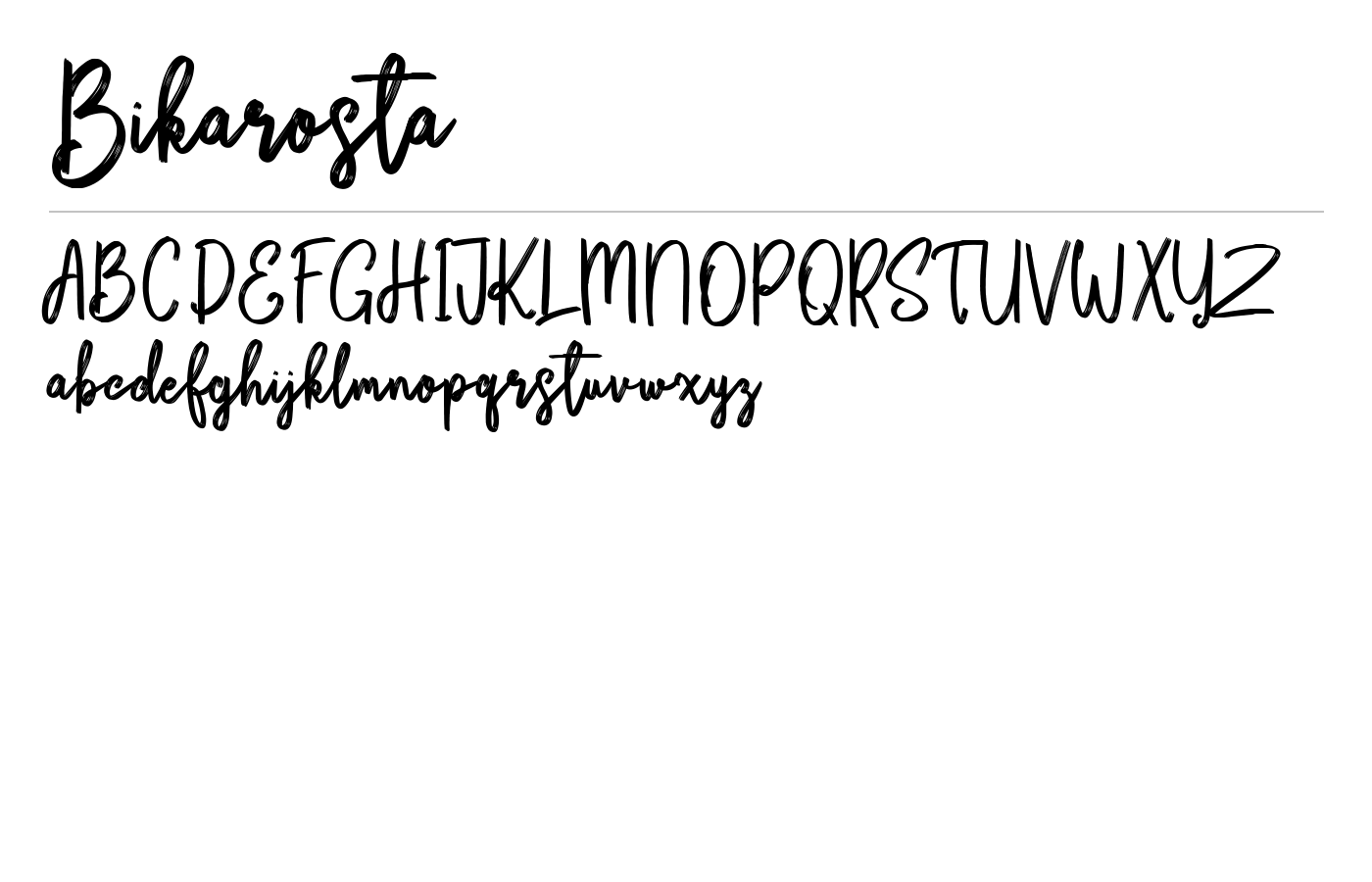
Bikarosta is a playful and casual script font with a hand-drawn feel, featuring smooth, flowing strokes and a lively rhythm in both uppercase and lowercase letters. Its slightly textured and irregular lines give it a warm, personal touch, making it perfect for creative branding, invitations, and informal headlines where a friendly, approachable vibe is desired. This font works well in designs that want to convey creativity and personality without sacrificing readability.
Bikarosta Font
About Bikarosta Font